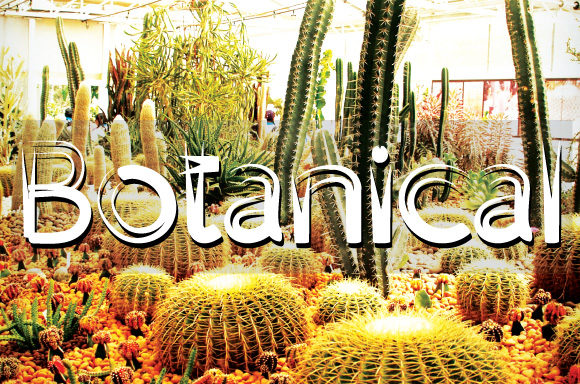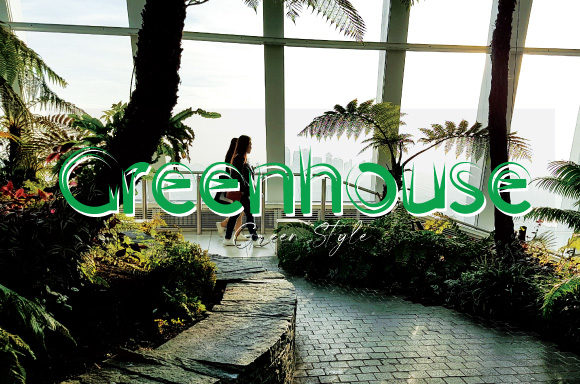
The Designer’s Delight: A Deep Dive into the Grassitto Font
Ah, the elusive perfect font. You know, that one design element that can make or break a project. I recall working on a casual craft project, pouring my heart into the design, but somehow, it just didn’t feel authentic. The font I was using was too bland, too generic. That’s when I stumbled upon the Grassitto font. It was like a breath of fresh air – bold, authentic, and perfect for adding a touch of personality to my design.
What I Love About Grassitto ✨
- ✅ Bold and Authentic: Grassitto embodies the perfect blend of boldness and authenticity, making it ideal for casual designs.
- ✅ Versatile: This font can be used for a wide range of projects, from crafting and DIY to branding and advertising.
- ✅ Easy to Read: Despite its boldness, Grassitto remains surprisingly legible, even at smaller font sizes.
- ⚠️ Limited Formality: Grassitto is best suited for casual designs. It may not be the best choice for formal or professional projects.
- ⚠️ Glyph Limitations: While Grassitto has a range of glyphs and OpenType features, it may not have every special character or symbol you need.
Exploring Alternatives: Similar Fonts to Grassitto
- Playfair Display: A elegant and refined font, perfect for formal designs or luxury branding.
- Great Vibes: A fun and energetic font, ideal for creative projects or casual designs.
- Rock Salt: A bold and rustic font, great for adding a touch of authenticity to your designs.
- Pacifico: A beautiful and elegant font, perfect for designs that require a touch of sophistication.
The Story Behind Grassitto: Designer Inspiration
Grassitto was designed with the intention of creating a bold and authentic font that embodies the spirit of casual design. The designer aimed to craft a font that would be perfect for creative projects, crafting, and DIY designs. With its unique blend of boldness and elegance, Grassitto has become a popular choice among designers and crafters alike.
| Font Name | Grassitto Font |
| Author | Dedi Art Studio |
| What is the best use for Grassitto? | Grassitto is perfect for casual designs, crafting, DIY projects, and creative endeavors. |
| Is Grassitto suitable for formal designs? | No, Grassitto is best suited for casual designs. For formal designs, consider using a more refined font. |
| Does Grassitto have OpenType features? | Yes, Grassitto has a range of OpenType features, including stylistic alternates and glyphs. |